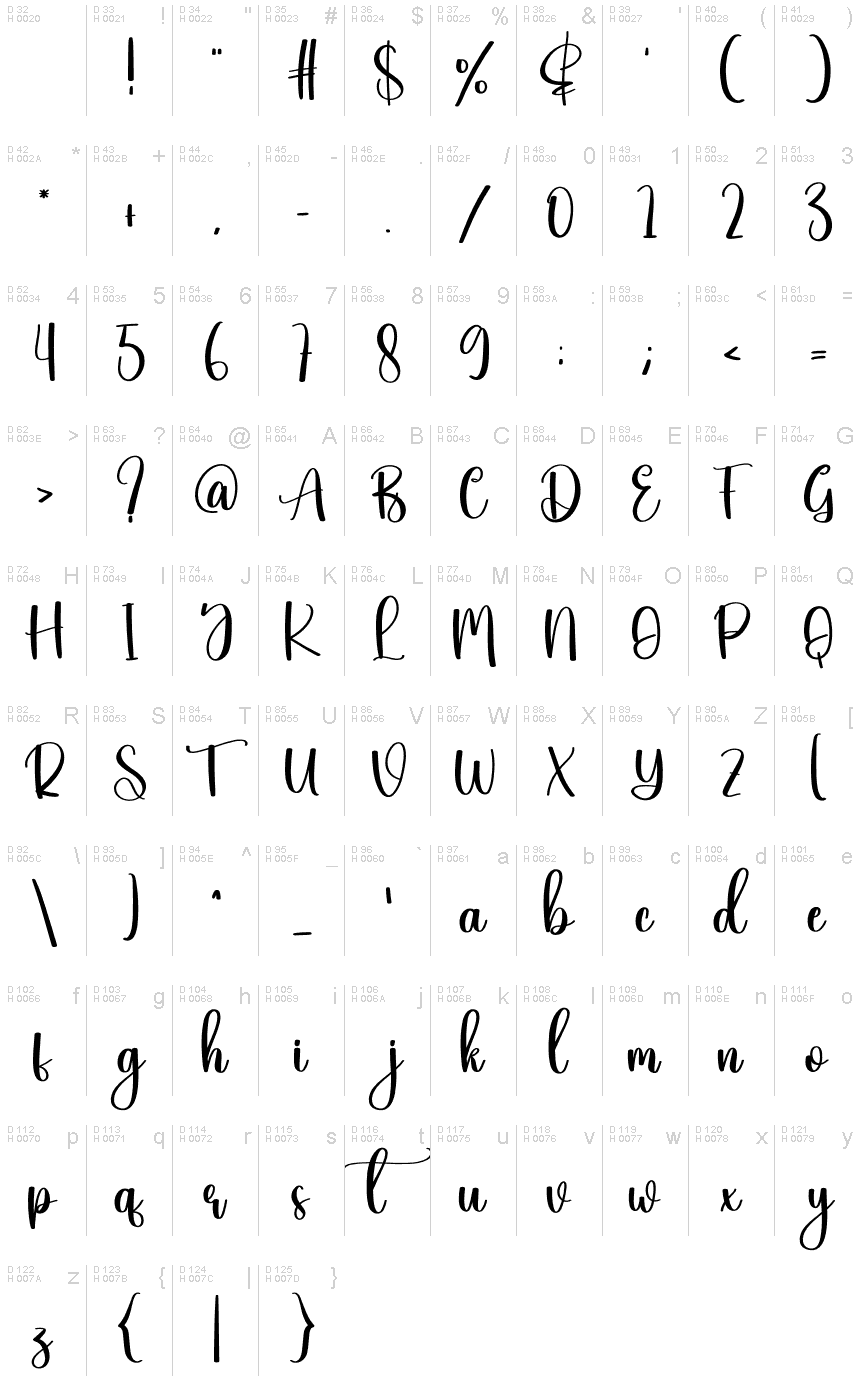
Library
Library, crafted by the visionary Scratchones, is a semi-light calligraphy font that exudes elegance and versatility. Its fluid lines and delicate strokes capture the quintessence of handwritten artistry, making it an ideal choice for projects demanding a touch of personal flair. Whether gracing wedding invitations or adding sophistication to branding materials, Library's unique character ensures your creations will leave a lasting impression.
Embrace the charm of calligraphy with a contemporary twist that only Library can provide.
The latest style letters are perfect for wall displays, wedding invitations, social media post logos,
advertisements, product packaging, product designs, labels, photography, watermarks, invitations, stationery, and any project that requires taste handwriting.
Embrace the charm of calligraphy with a contemporary twist that only Library can provide.
The latest style letters are perfect for wall displays, wedding invitations, social media post logos,
advertisements, product packaging, product designs, labels, photography, watermarks, invitations, stationery, and any project that requires taste handwriting.